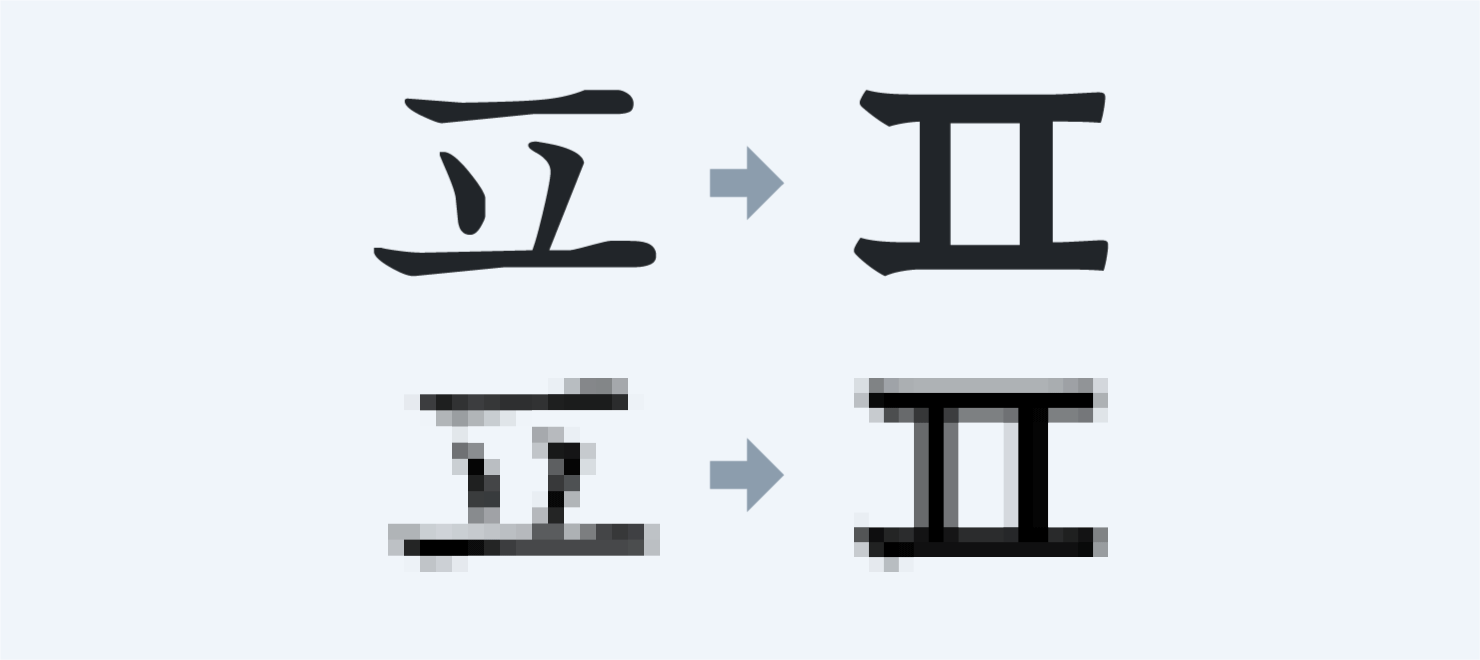
Type Branding
…So what exactly are we removing here?
Type branding* refers to one approach to branding. And branding centers on brand identity. The core of the previous sentence is, needless to say, the “brand.” Then one might attempt the following question: “What happens when the brand is removed from type branding?” In Korean dictionaries, what remains after removing the core is called a shell. So what is the shell in type branding? This article is about type branding with the brand removed—the shell. In other words, a red bean bun without red beans. A Hongcheol Team without Hongcheol.
*Depending on the subject, it is also called typo branding or font branding, but Sandoll uses the term type branding.
Readability over brand
In commonly perceived type branding cases, brand identity is often actively reflected in the form of the font. Fonts completed in this way make it easy to recognize which brand they belong to, even without further explanation. A representative example is Hyundai Card 「“You and」. Just as consumers can easily identify a brand through its symbol or color, type branding plays a similar role.
In contrast, there are also cases that focus solely on usability as a font. Among domestic examples, Ridibooks’ 「Ridi Batang」 developed as an e-book font, falls into this category. Ridibooks developed 「Ridi Batang」 to improve uncomfortable reading experiences in e-books and distributed it for free so that anyone could use it.
「Ridi Batang」 is not a font that embodies Ridibooks’ brand characteristics, but one that focuses exclusively on readability in e-books. It increases inner spaces and removes unnecessary ornamentation so that text reads clearly at a glance, improving readability on mobile devices. It was also designed to align the upper visual center line so that long passages are easier to read and the flow of the eye feels comfortable.
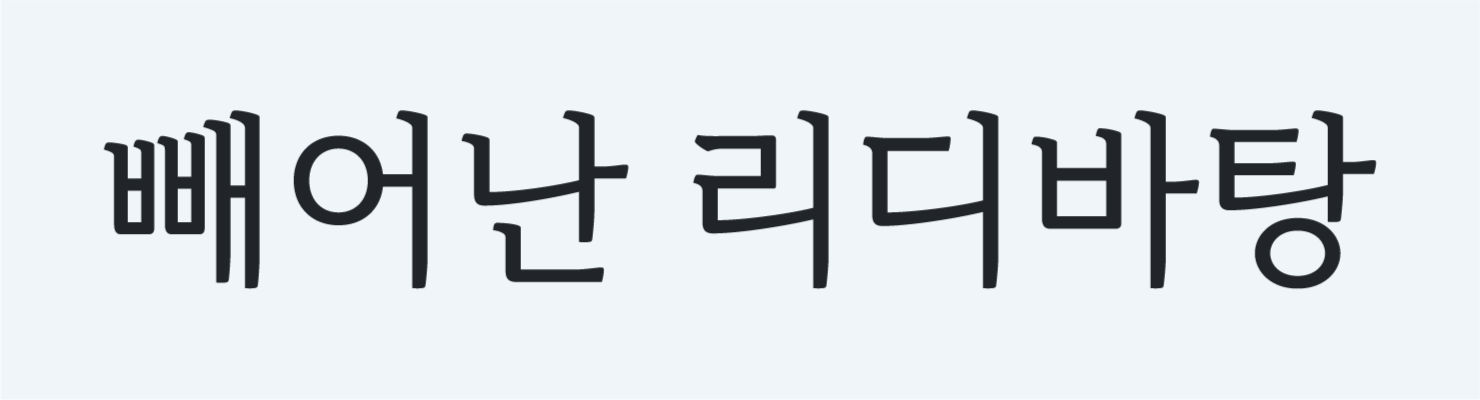
RIDI. It guides a comfortable flow of the eye through variable widths and spacing between letters.
RIDI. Upright top strokes and attached side stems allow characters to be clearly distinguished even at small sizes.
RIDI. Readability is improved by removing ornamentation. (Link)
Usability over brand
One representative example of type branding that is never left out is Naver’s 『Nanum』 series. Since 2008, as part of the “Hangul Hangul Beautifully” campaign, Naver has produced and distributed various fonts for free. In terms of the total number of fonts produced, the figure reaches around 150. While there are no related statistical data, this is likely the highest number of free fonts distributed by a brand. Rather than emphasizing brand individuality through fonts, Naver developed its fonts with a focus on diverse usability in online environments.
“Even people who did not know that Naver makes fonts might find that there is at least one 『Nanum』 font installed on the computer they use every day. Familiar fonts such as 「Nanum Gothic」, 「Nanum Myeongjo」, and 「Nanum Square」—fonts that were used for assignments, for work, and even for résumés.”
– What Is Different About the Fonts Naver Makes?, Deogeopilchi, 2022 (Link)
“For a long time, Naver has focused on improving the font environment with the hope that the large amount of information written in Hangul in the online world could be used more beautifully. Unlike other brand fonts, which are developed to reveal strong individuality by focusing on the brand itself, Naver considered itself a brand that grows together with users, and therefore created fonts that are more user-focused. Whether ‘people using the service can use it comfortably as if it were their own,’ and whether ‘diverse, high-quality fonts that users need are being provided’ have always been Naver’s top priority.”
– What Is Different About the Fonts Naver Makes?, Deogeopilchi, 2022 (Link)
Naver. The Naver Nanum font family, ongoing since 2008 (Link)
Universality over brand
There is a case in which the Japanese home electronics company Panasonic (パナソニック) and Iwata (イワタ) developed the 「UD Font」. Here, ‘UD’ stands for Universal Design (UD), which refers to a universal design that is not constrained by gender, age, disability, or language. As vision declines with age, or when characters are small or complex, reading can become difficult. This is especially true in Japan, where kanji with a large number of strokes are commonly used. Against this background, the 「UD Font」 pursues ease of reading over visual beauty. It simplifies the strokes of Mincho fonts and eliminates ornamentation from Gothic fonts, significantly enlarging the components of kanji. It is designed so that characters that are easy to misread—such as the alphabet letter ‘S,’ the numbers ‘3’ and ‘8,’ and the alphabet letters ‘O,’ ‘C,’ and ‘G’—can be easily distinguished.
Panasonic is not limited to this single case, but is also a company that realizes ‘UD’ across a wide range of areas. Cleaning air conditioner filters installed at high locations is a task that places a heavy burden on older adults or pregnant women, so Panasonic developed air conditioners that clean themselves. It has also released portable voice output devices for people with speech impairments. In addition, it is said that Panasonic has introduced concrete ‘UD’ guidelines not only for in-house designers and developers, but also in marketing and shipping departments.
Panasonic does not deliberately emphasize brand identity. What it focuses on is solely providing home appliances that everyone can use comfortably. For any company, making good products may seem like a given. However, Panasonic has a clear objective regarding whom those good products are for. In branding, building a concrete persona for the target audience is extremely important, because doing so naturally clarifies the brand’s positioning.
Type branding is not a solution that creates strategies a brand did not originally have. No matter how good a font is developed, if its justification in relation to the brand is weak, it cannot be called good type branding. In branding, what matters most is the story the brand seeks to convey—in other words, its essential brand identity. Type branding functions as a means of shaping this through type, and of creating a unique voice that expresses the brand’s story beyond simple letters.